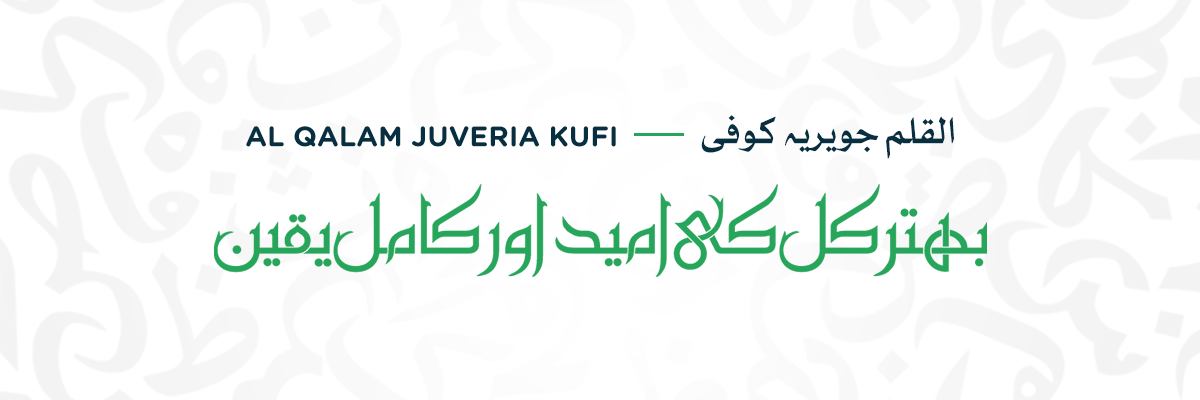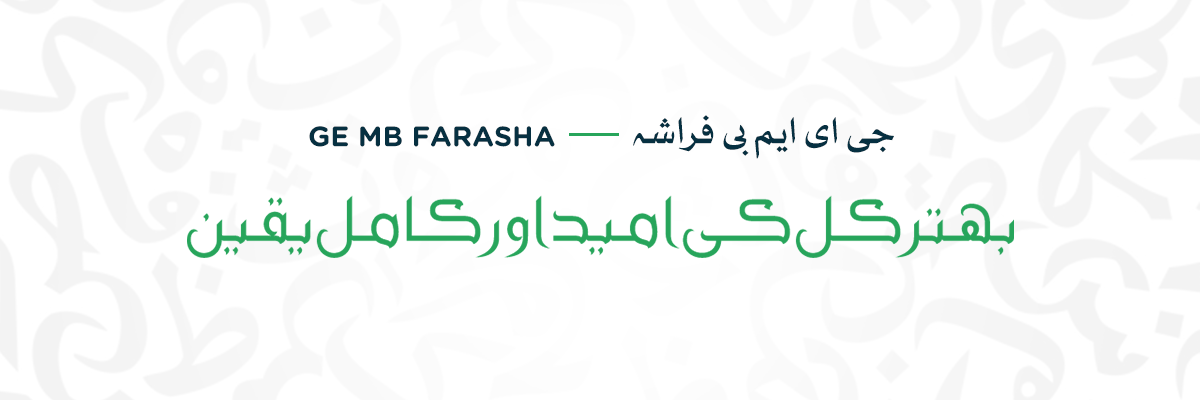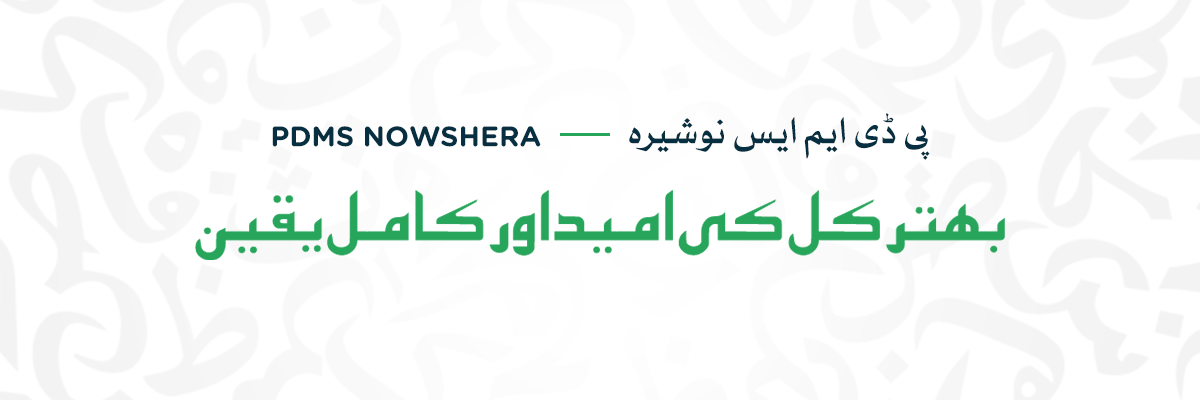
With each passing day, Urdu fonts are gaining popularity and are used for different purposes now. Ranging from designing artworks, calligraphy, brand logos, pop culture, etc., you will see Urdu fonts used in every field now. In addition to different styles of Urdu fonts like Naskh, Diwani, Nastaliq used for calligraphy, Kufic Urdu fonts have become popular for creating amazing designing projects or doing Calligraphy. Their thick, geometric letterforms make them a good choice to give a modern look to your artworks.
Furthermore, Kufic fonts mostly feature sharp angles, straight lines, and subtle curves. Their characters are often rectangular or square in shape, offering a structured and well-aligned appearance to your designing tasks. Another feature which makes these fonts best for calligraphy is its readability, allowing viewers to read at different resolutions. In this article, we will discuss some of the best Urdu Kufic fonts for Calligraphy and Designs. Moreover, learn more about 8 notable Urdu Font Designers of all time, who offered some of the best fonts to cherish.
The availability of numerus types of Urdu Kufic fonts makes it easier to select one according to the requirements of the project you are working on. Here is the list of some the best Urdu Kufic fonts.
| Sr. No | Font Name | Font Designer/Trademark |
|---|---|---|
| 1 | GE MB Fares | Boutros International |
| 2 | AGA Cordoba V3 | Mohammad Alagha |
| 3 | Ae Al Battar | Nadim Shaikli |
| 4 | Unikurd Yadgar | Ardawan, Bardaqani, and Azad |
| 5 | Zkurd Wllat | Zanistperweran |
| 6 | UL Noreen | Urdulife.com |
| 7 | Andalus | Mamoun Sakkal & Mohammad Alagha |
| 8 | Old Antic | Platinum Technology 96 |
| 9 | AlQalam Hassan | Muhammad Ishtiaq Ali Attari & Attari Qadri |
| 10 | Al Qalam Juveria Kufi | Muhammad Ishtiaq Ali Attari |
| 11 | GE MB Farasha | Boutros International |
| 12 | PDMS Nowshera | Pakistan Data Management Services |
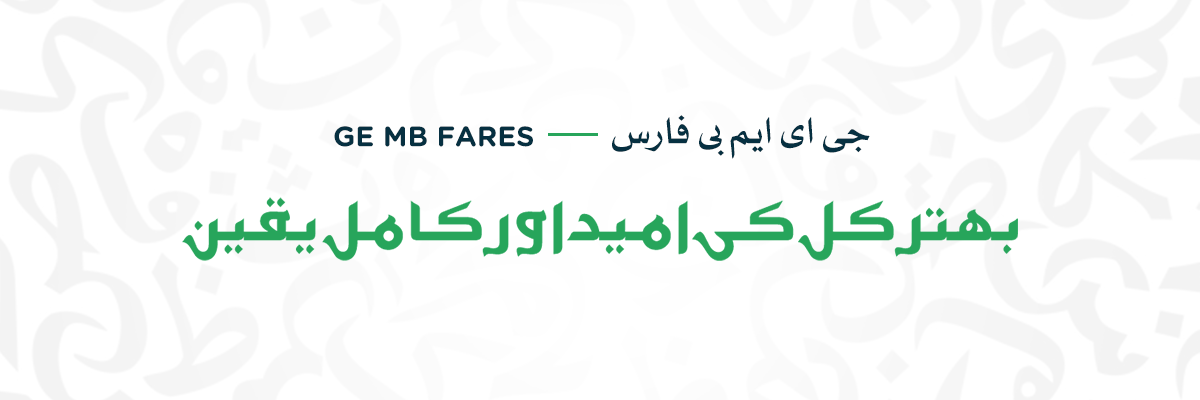
GE MB Fares is a Kufic font created by the Boutros International type foundry. Launched in February 2017, it is an Arabic font with a geometric appearance and modern element. The font is thick and has some pointy edges. It is available in light, medium, as well as bold weights to suit perfectly with many design requirements like headings or long-form text. The wide and monospaced letters of this fonts create a decorative style best for branding and advertising.
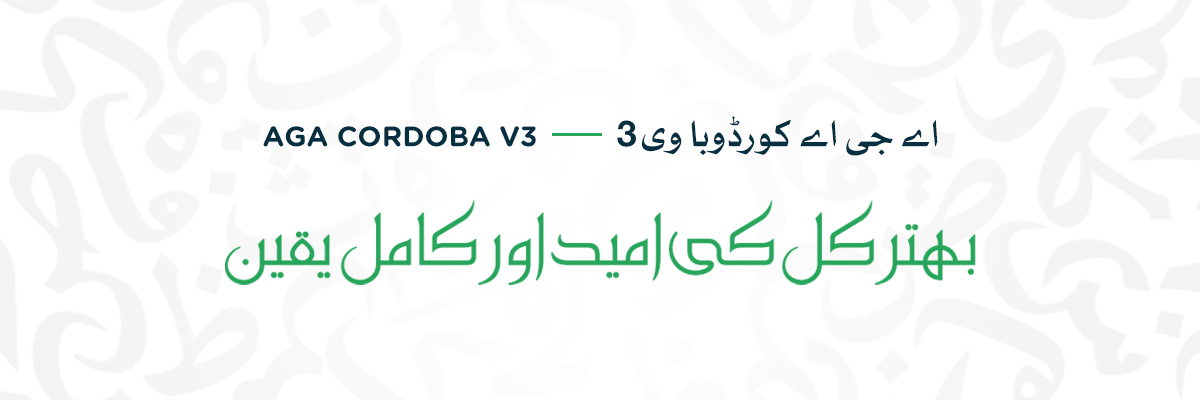
AGA Cordoba V3 was released by Almedia Interactive Ltd. on 18th March, 2014. The designer of this font by Mohammad Alagha. You can use this Kufic typeface in your calligraphy and design projects to give a cultural touch. Having 475 glyphs and 493 characters, it supports many languages smoothly across various software. Generally, it has a sharp appearance with thin letterforms.
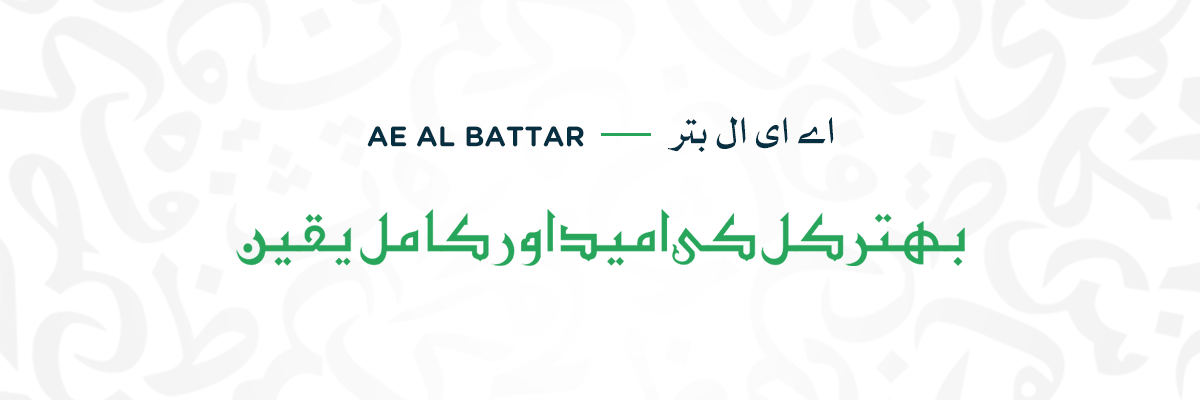
Ae Al Battar was designed by Nadim Shaikli and is another Kufic inspired font. Published by Arabeyes, it is a bold as well as decorative Arabic font that has a very geometric look. The pointed curves and the overall decorative appearance are what gives it a creative look. Also, the strokes of the characters have a constant and comparatively thick weight, offering a clean look in your projects.
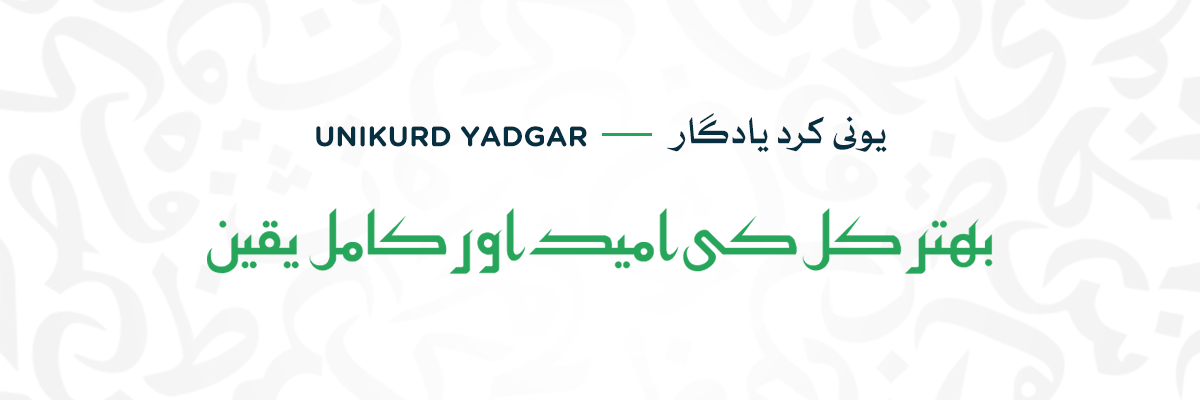
Unikurd Yadgar is another Arabic font that was released on 16th Oct, 2012. It was launched by Kurd It Group and was created by Ardawan, Bardaqani, and Azad. Inspired by Kufic style, it is a bold font having irregular letters which are not aligned properly. The thickness of this font varies throughout the letterforms however, it still offers maxim legibility. You can use this for writing short texts in your posters or branding designs.
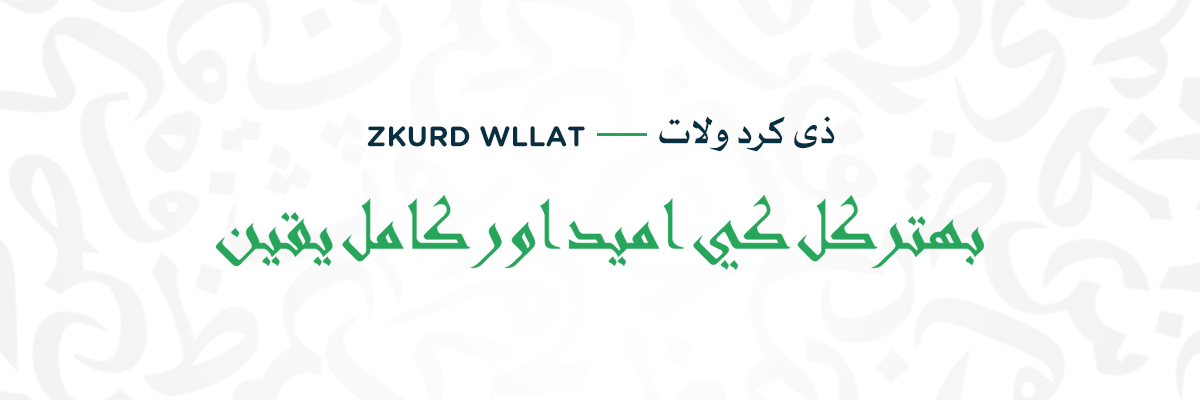
The designer of Zkurd Wllat is Huner and was launched by Zanistperweran. Another bold and thin font having sharp corners and subtle curves, it has 358 characters and 339 glyphs supporting different languages. Also, the font is irregular and mono-spaced with sharp edges and pointed corners. Its thinner appearance makes it a perfect choice for writing short calligraphic texts and designing artworks.
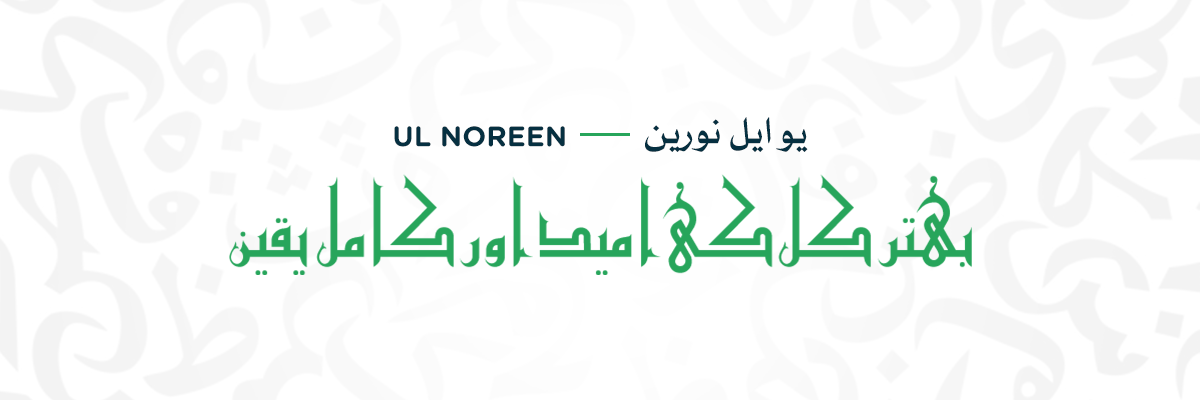
UL Noreen was launched on 22nd August, 2013 and is a product of Urdulife.com. It is a decorative Kufic font which allows you to give an elegant look to your artistic designs. UL Noreen offers 395 glyphs and 400 characters and supports Latin, Urdu, Arabic, and more languages. Having three different font versions, the font is the perfect choice for designing various calligraphic or designing projects.
Andalus was designed by Mamoun Sakkal & Mohammad Alagha and published by Microsoft in 2011. It is a thin, Kufic inspired font with a decorative appearance appropriate for posters, slogans, calligraphic design projects, and much more. Having 492 characters and 518 glyphs, the letterforms of Andalus are irregular with pointed corners. Due to its complex design, it offers lower legibility but you can use it specifically for shorter texts to add an artistic touch.